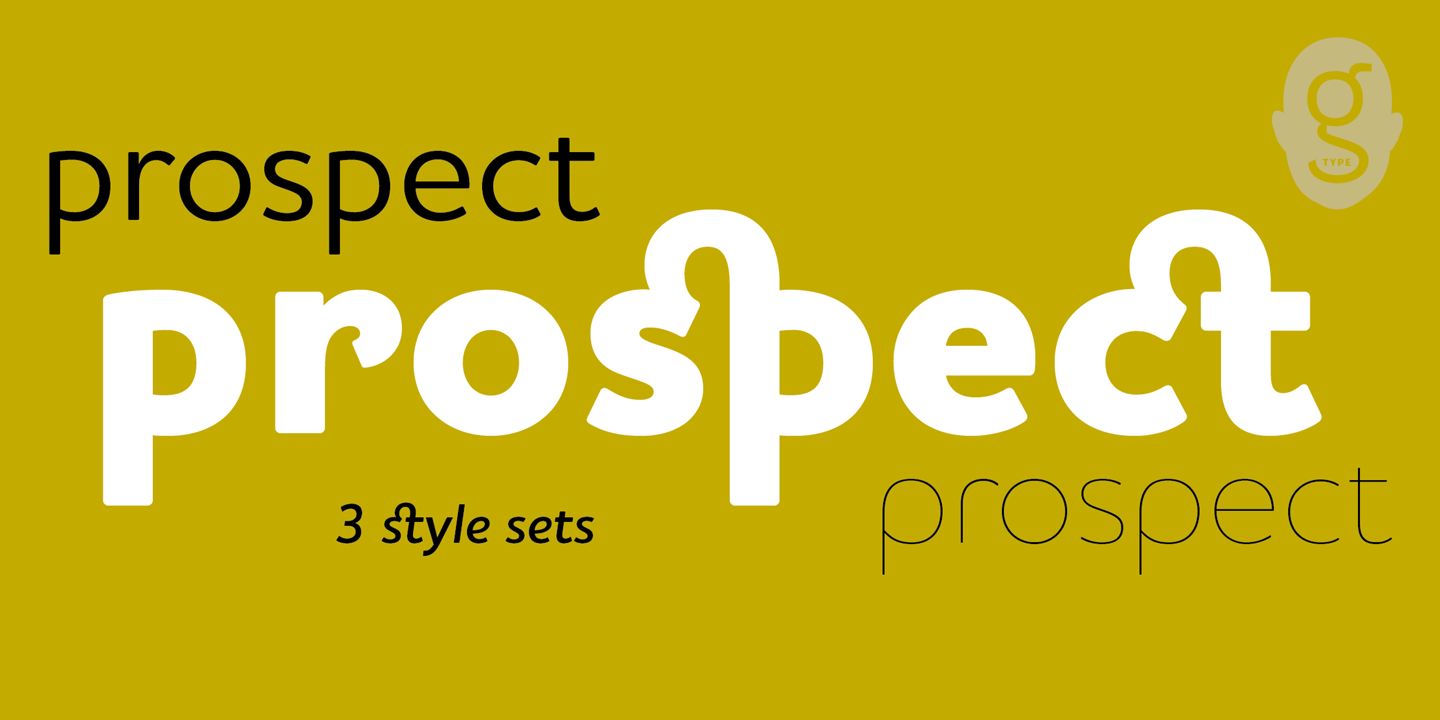
Houschka Alt Pro Font is perfect for contemporary architectural signage, modernist design studios, progressive art galleries, innovative tech companies, avant-garde fashion brands, experimental music labels, cutting-edge advertising agencies, design-forward retail spaces, cultural institutions, and any projects that require distinctive typography with artistic innovation and geometric sophistication.
What makes Houschka Alt Pro Font exciting is its unique architectural character that reimagines geometric sans-serif design through innovative letterforms with distinctive angular cuts and modernist construction details. This striking typeface features bold geometric principles with experimental touches that create memorable visual impact while maintaining excellent functionality across all applications. The font's avant-garde character makes it perfect for brands seeking to communicate creativity, innovation, and the fearless pursuit of design excellence that pushes beyond conventional boundaries.
Houschka Alt Pro Font family includes comprehensive architectural weights featuring thin, light, regular, medium, bold, and black options. The font family also offers alternative character sets with enhanced geometric characteristics, along with condensed variants that maximize the distinctive angular features. Special features include experimental ligatures, geometric ornaments, and advanced OpenType capabilities that provide extensive customization possibilities for progressive design applications.